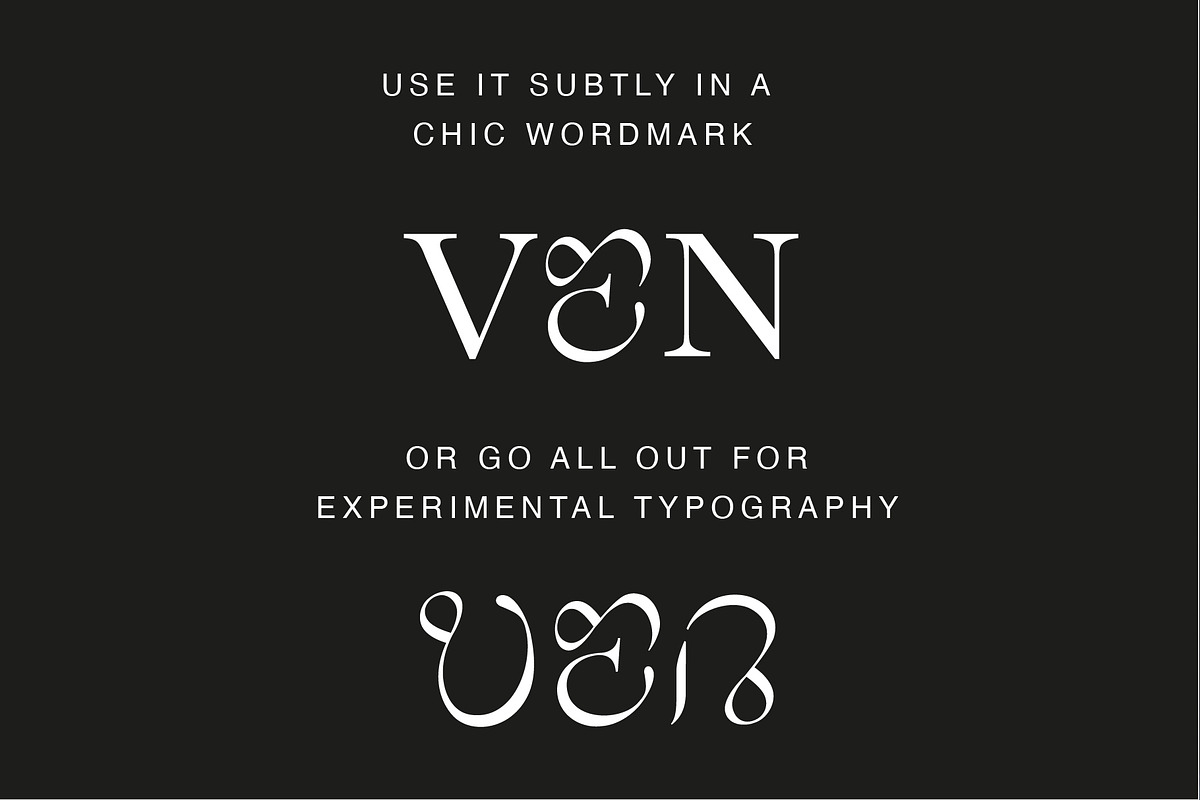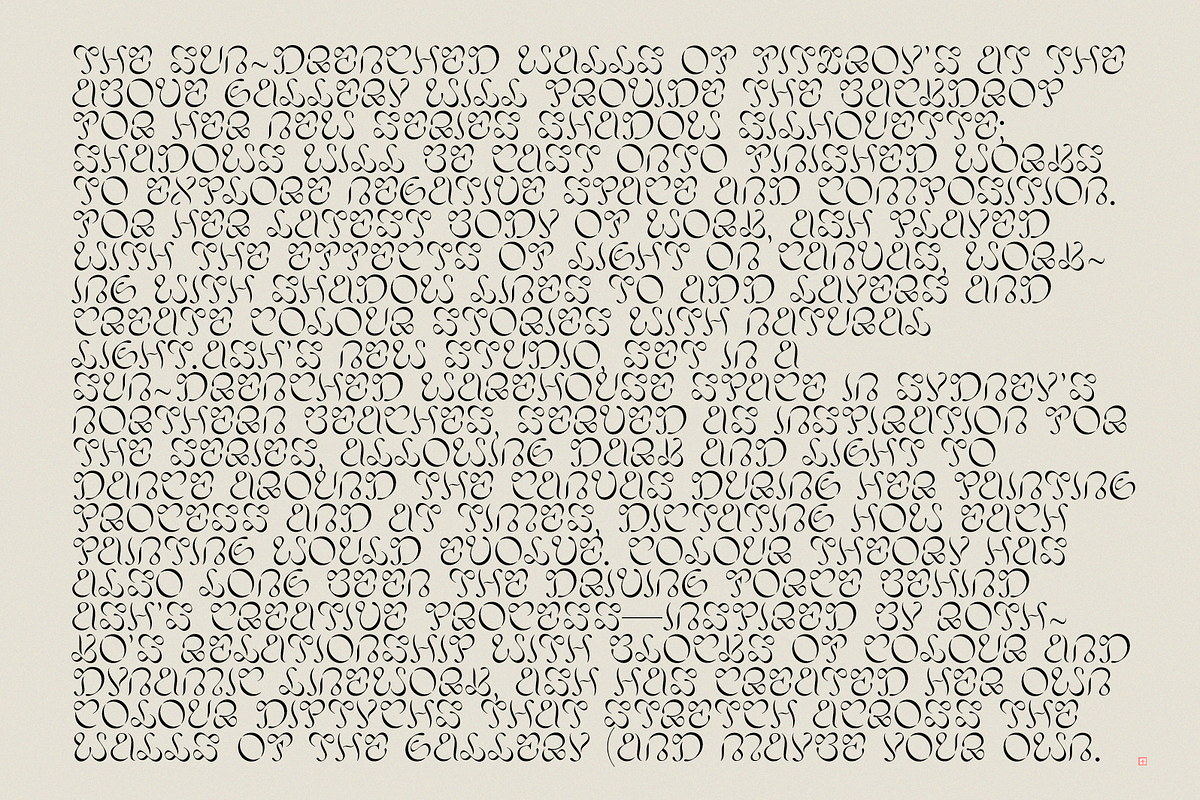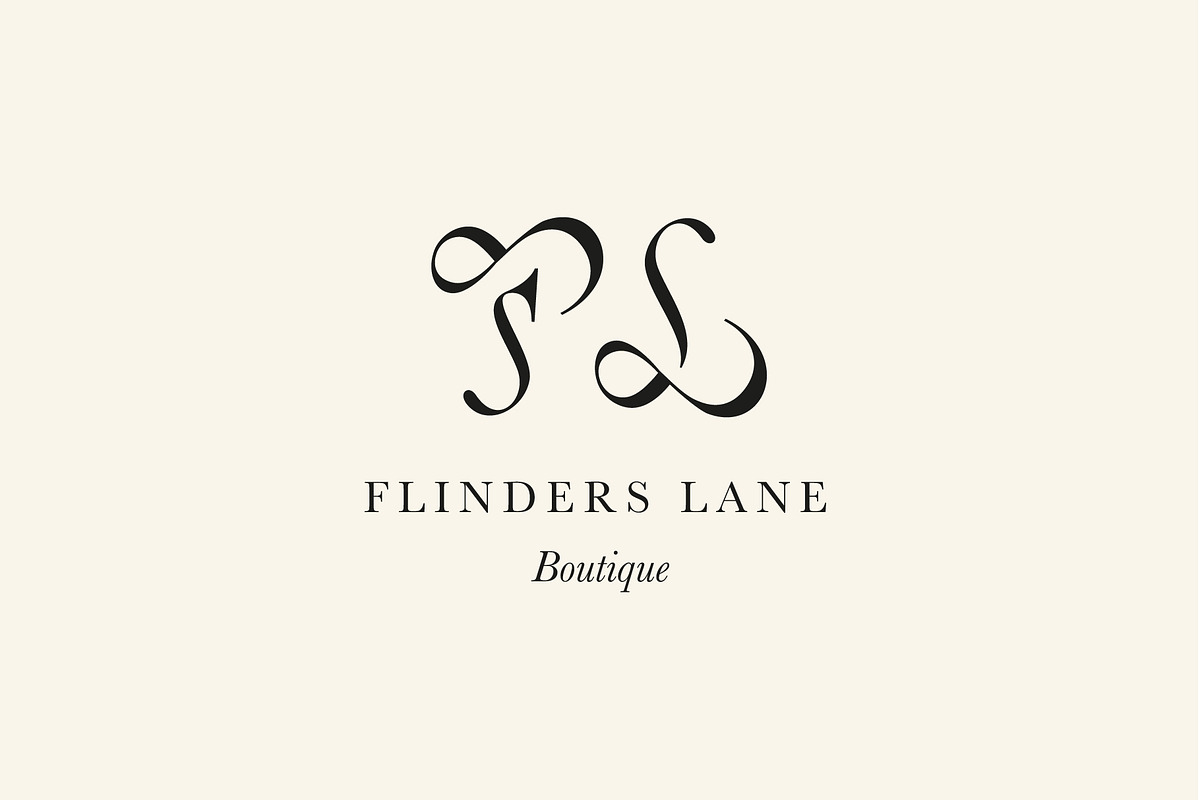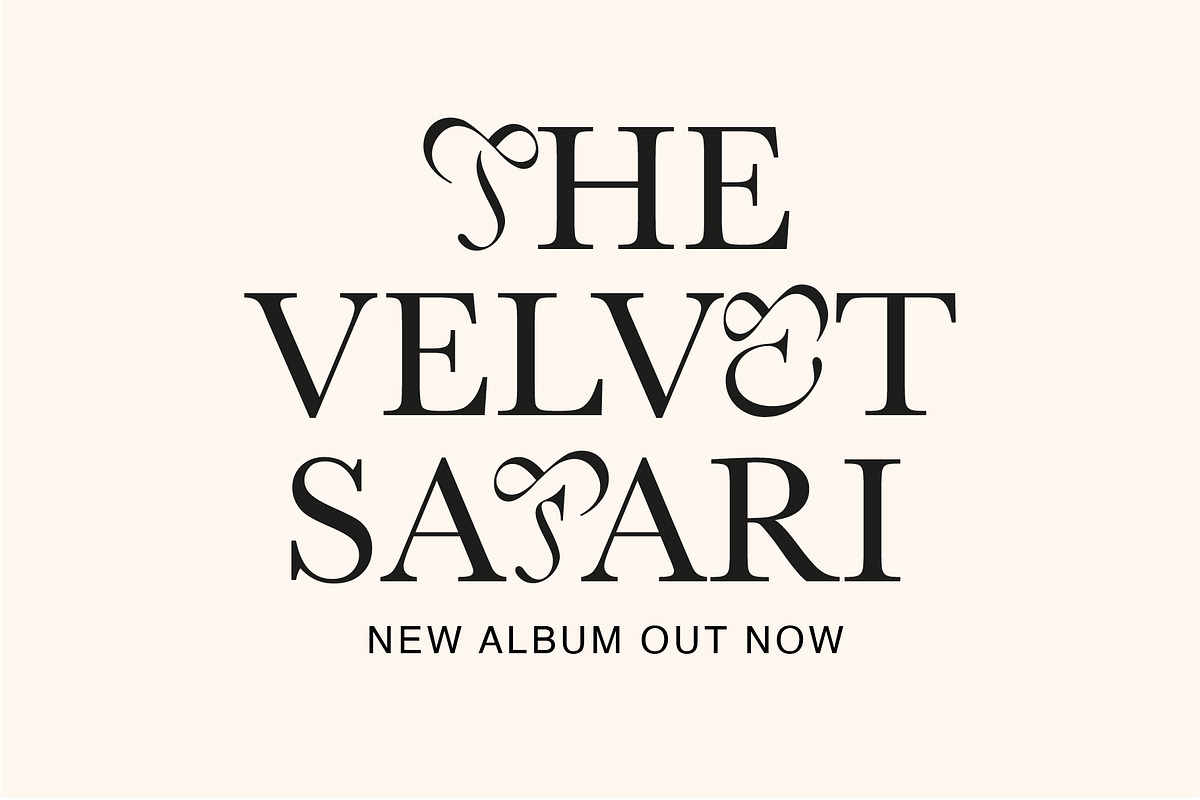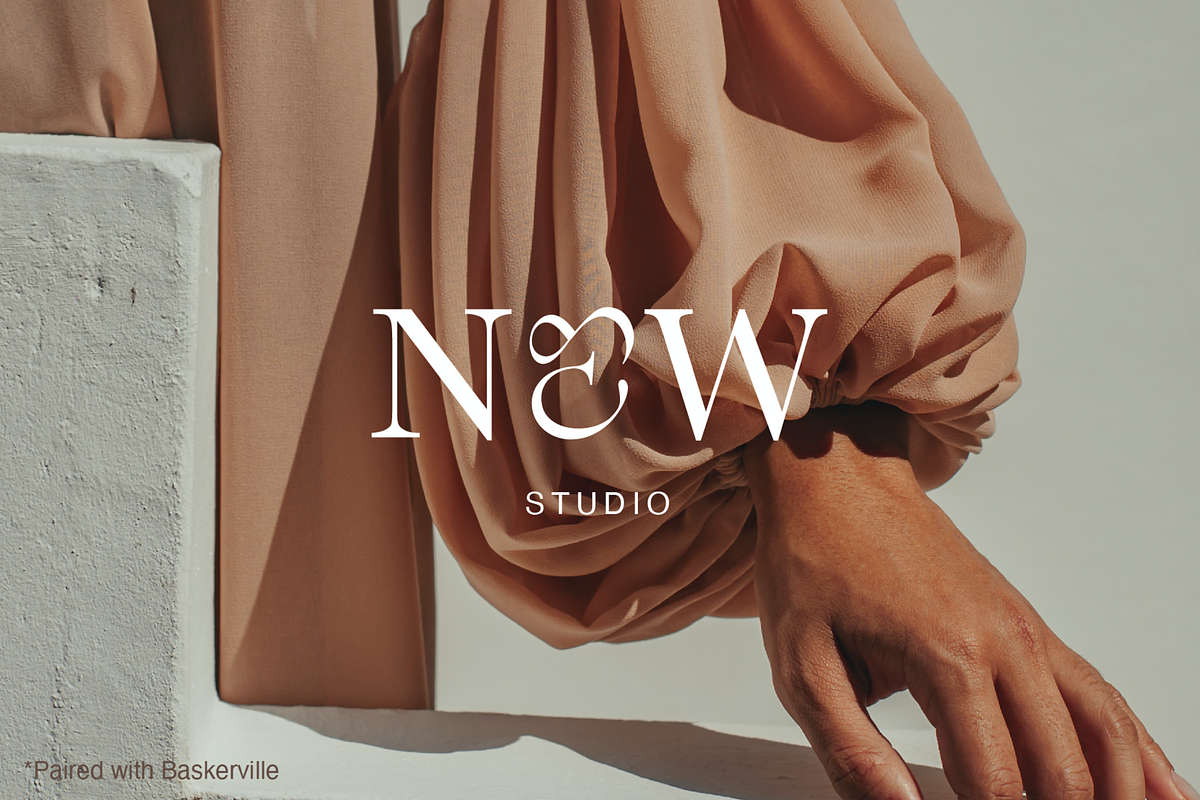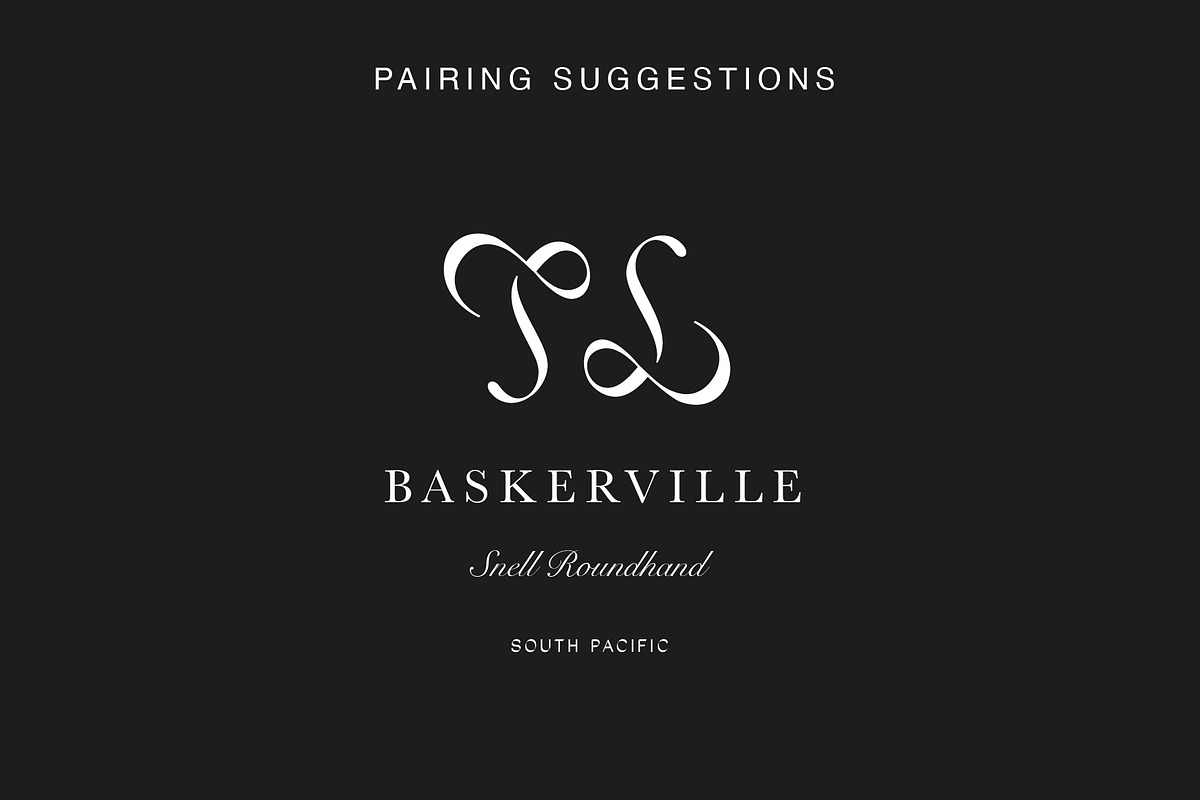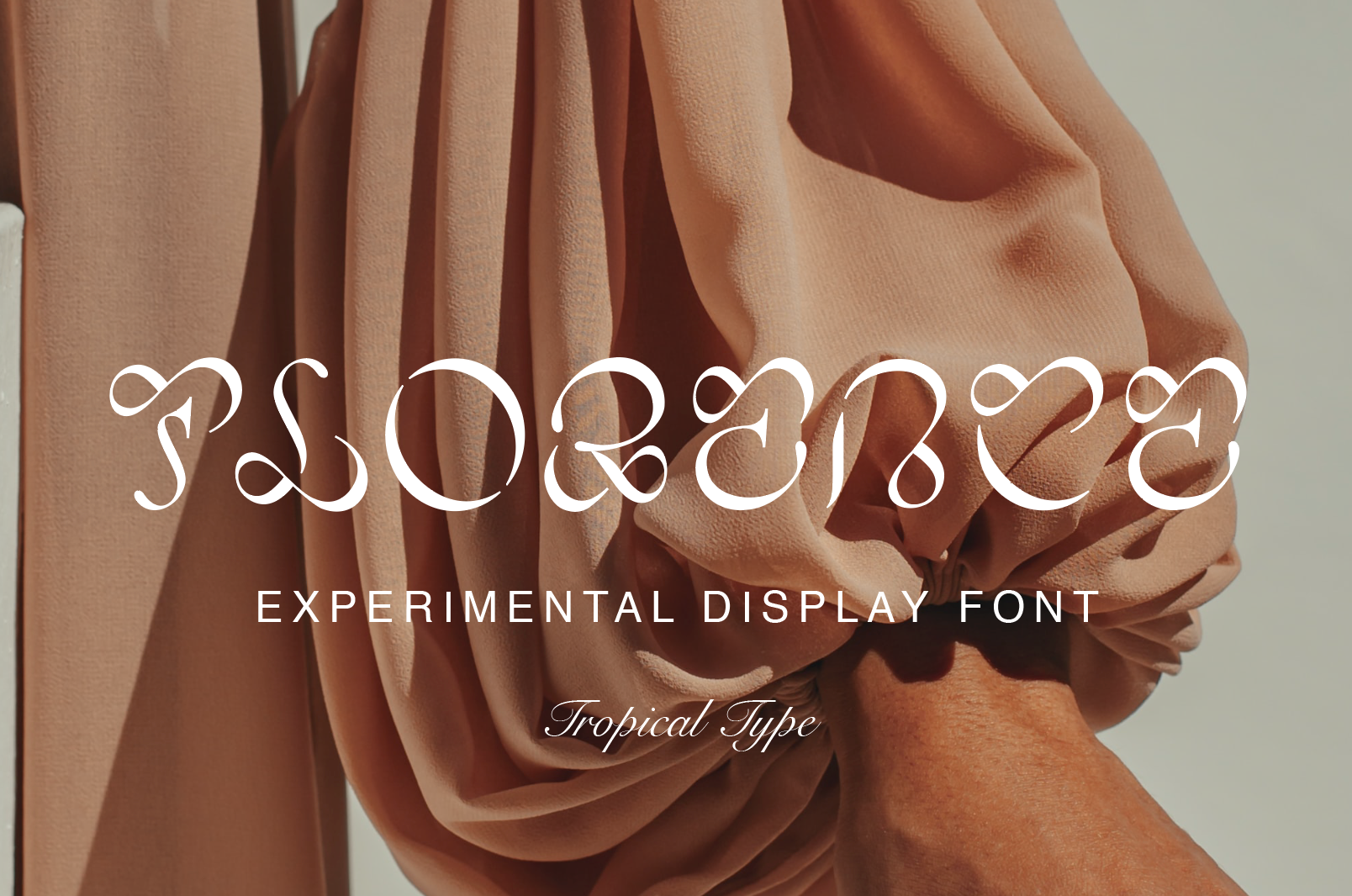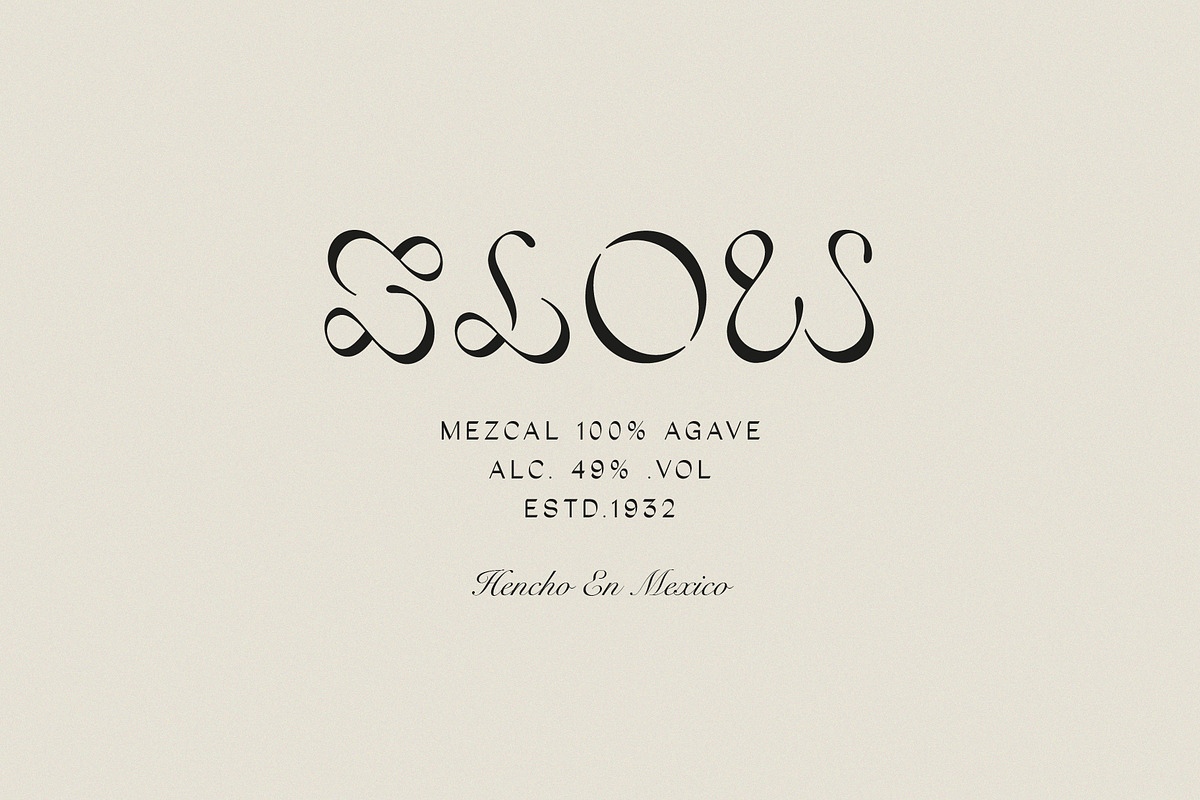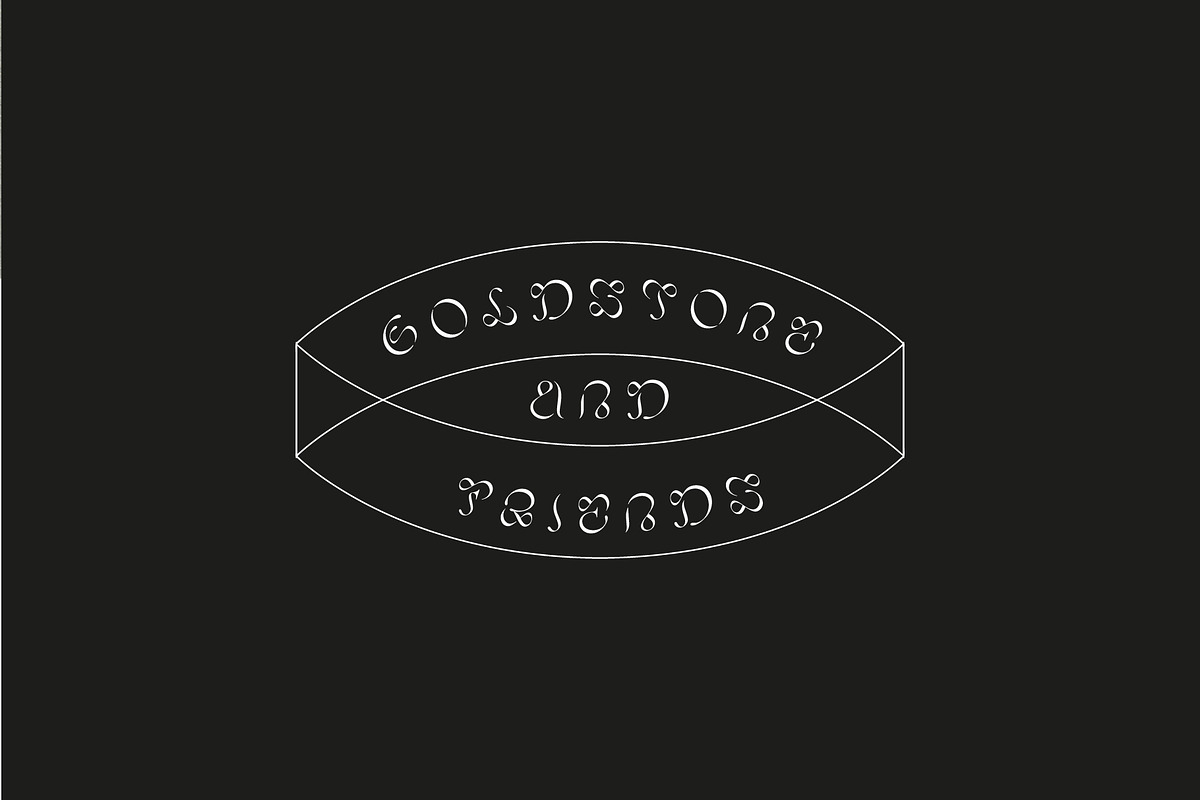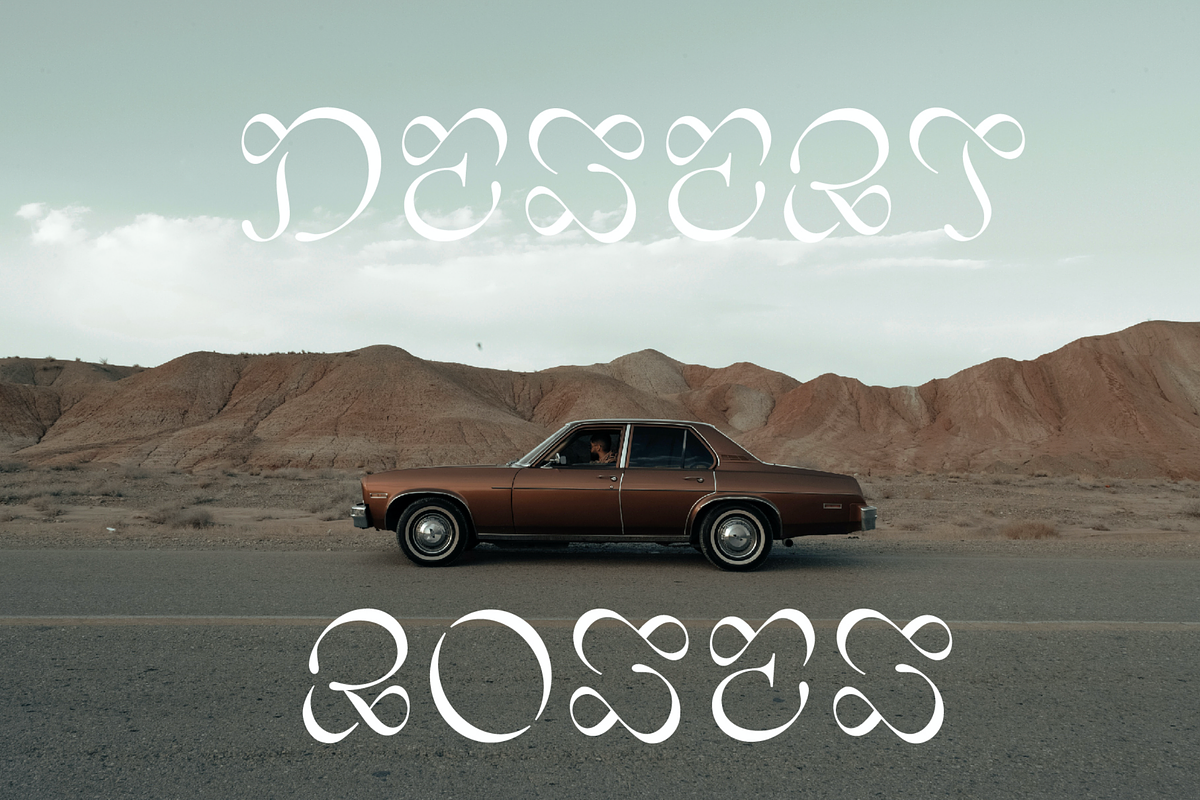
Florence Display Font
FLORENCE DISPLAY is an experimental display font that is made to pair. Each ornate letter can make a unique monogram or mix them in with other fonts for a memorable wordmark. On it's own, Florence is a sort of feminine version of a blackletter style. Similar decorative flourishes but with smooth curves rather than sharp edges.
Pairing suggestions.
Baskerville and baskerville italic for a classic look. ( free with adobe )
Snell roundhand for a classic script. ( free with adobe )
South Pacific for a calligraphic look ( Tropical Type )
Helvetica for a clean contrast.